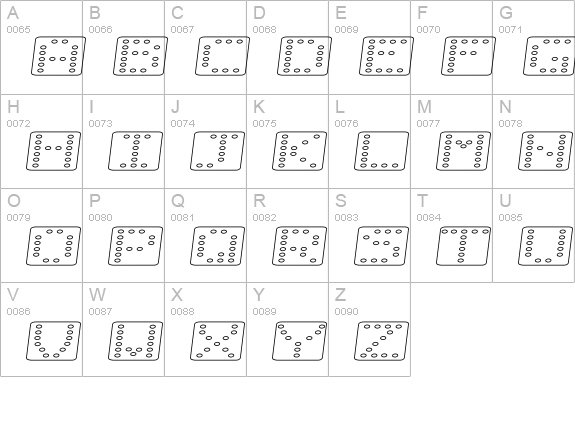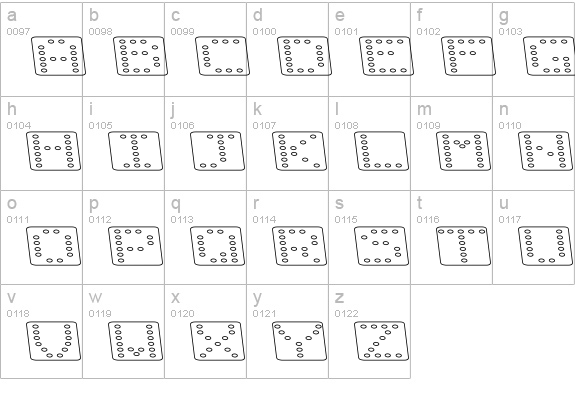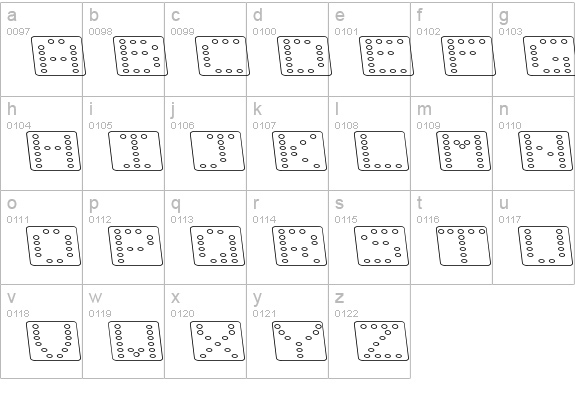
The Domino flad kursiv omrids font is a sleek and modern typeface that exudes sophistication and elegance. Its clear, bold lines give it a strong presence while its italicized style adds a touch of flair and creativity. Perfect for adding a unique and eye-catching touch to any design project, this font is versatile and can be used for a wide range of purposes. Best of all, this font is available for free download at FontsMarket.com. Whether you are designing a poster, creating a logo, or crafting a website, the Domino flad kursiv omrids font is sure to make a statement and elevate your design to the next level. Download it now and unleash your creativity with this stunning and dynamic font.